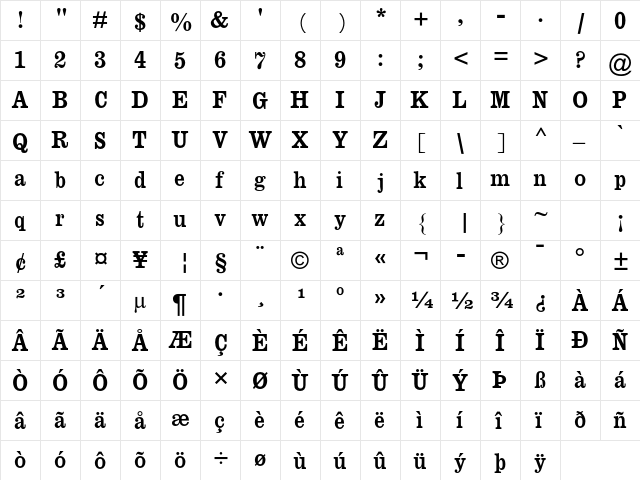
Clarendon MT Std Regular
Design Context for Clarendon MT Std Typeface
Clarendon MT Std features prominent, blocky serifs that give it a confident, grounded presence — equally at home in editorial settings and bold branding work.
Suited to magazines, political campaign materials, bold packaging, and any setting where authority matters.
Pro Tip: Use Clarendon MT Std for headlines and subheadings where its slab serifs can make an impression. It also holds up well in mid-size body copy thanks to its sturdy construction.